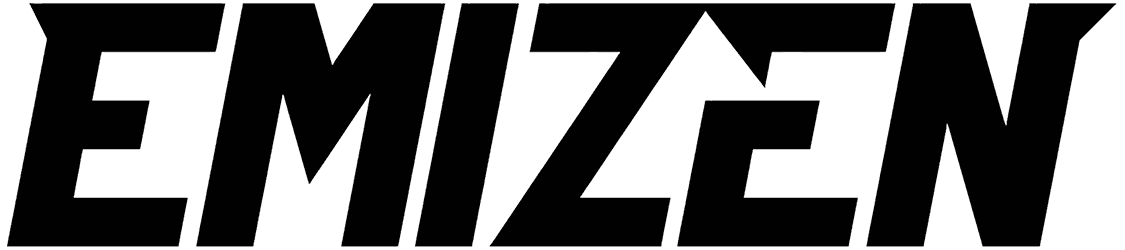
Emizen Font
Surprise your audience with the most interesting and futuristic typography of all time! This sci-fi font has a simple yet very modern design. It offers strong, bold, sans-serif style characters that are lively. If you are planning to create powerful typography that is engaging, give Emizen a shot.
It doesn’t include lower-case alphabets in the clear, energetic set of letterforms provided. Common places to carry out Emizen are books, flyers, posters, gaming, apps, and wherever else you desire.